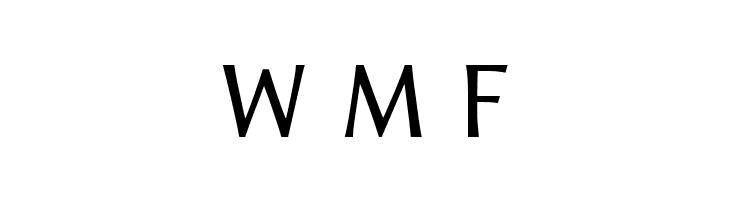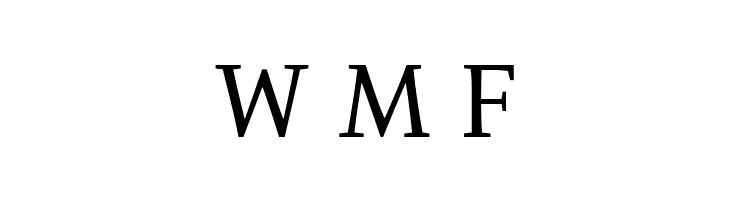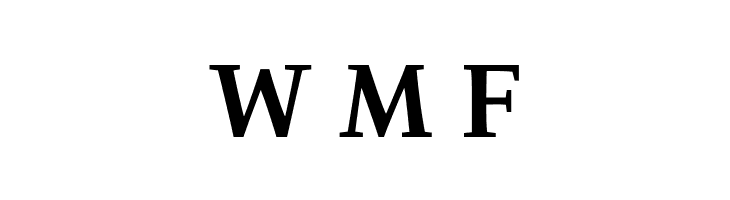
A modern, italic sans-serif font with a sleek and dynamic style.
A modern, clean sans-serif font with excellent readability and versatility.
An elegant serif italic font with smooth lines and moderate contrast.
A modern serif font with elegant lines and versatile applications.
A bold, classic serif font with strong strokes and pronounced serifs.
A bold, italic serif font with a classic yet modern style.
An elegant italic font with smooth curves and moderate stroke contrast.
A bold, classic serif font with strong strokes and elegant serifs.
A bold, italic serif font with a classic and elegant style.